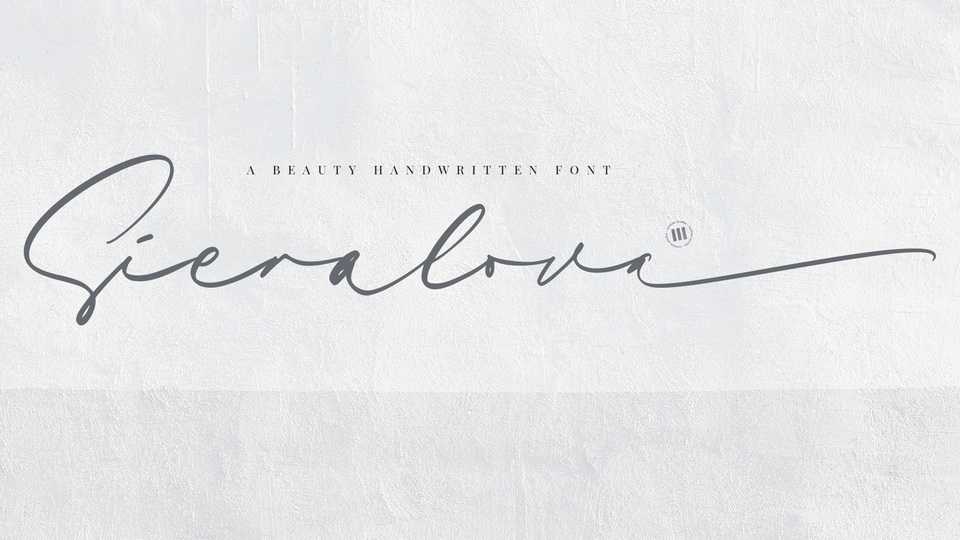
Download Sieralova font a modern and stylish signature script typeface. Trendy and feminine, Sieralove looks lovely on wedding invitations, thank you cards, quotes, greeting cards, logos, business cards and more.
Designer: Colllab Studio